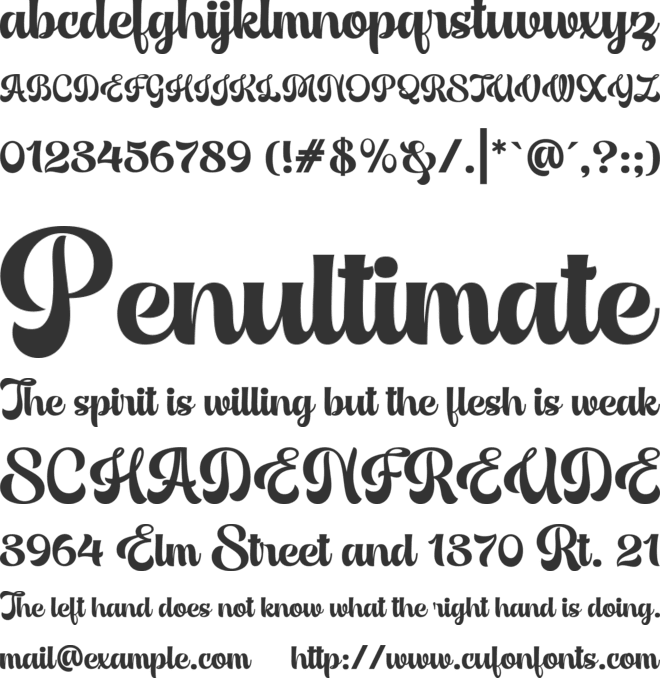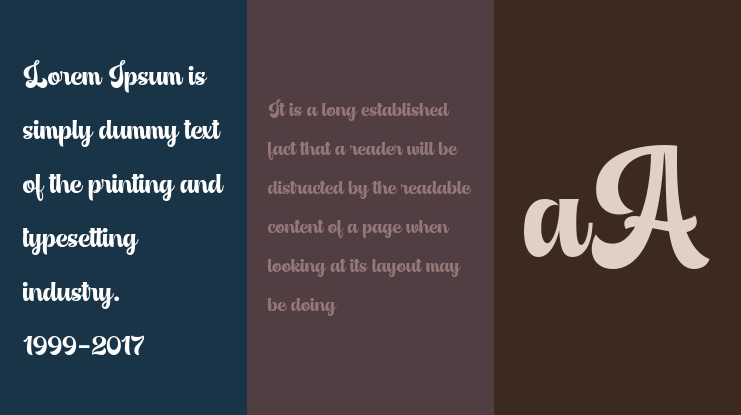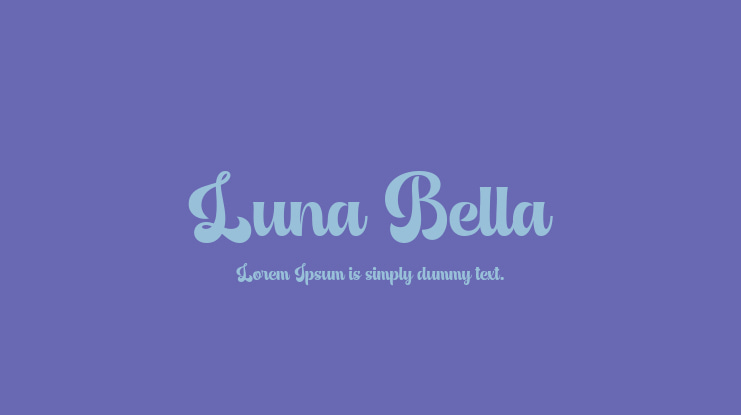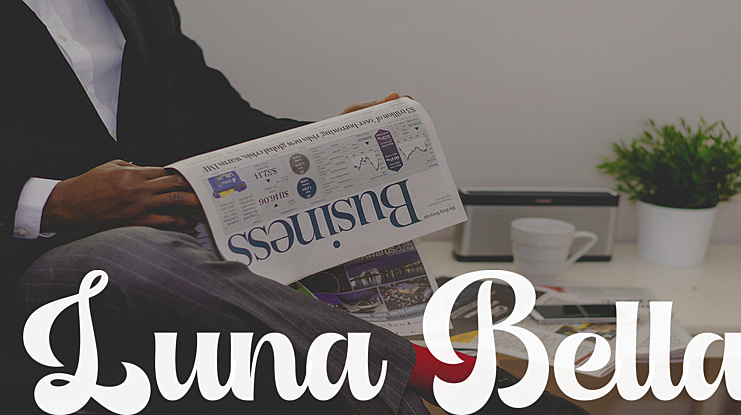
Luna Bella Font
Luna Bella is a vintage and bold handwritten font. It has many alternate characters which will make it easy for you when choosing a character for each design project. This font is PUA encoded which means you can access all of the glyphs and swashes with ease!